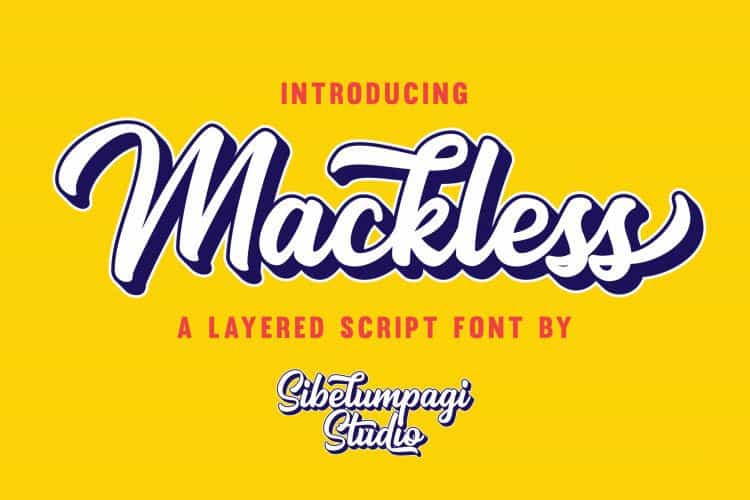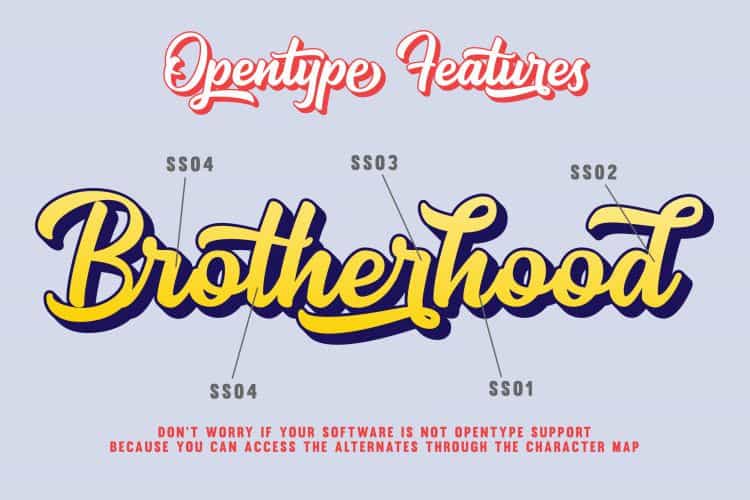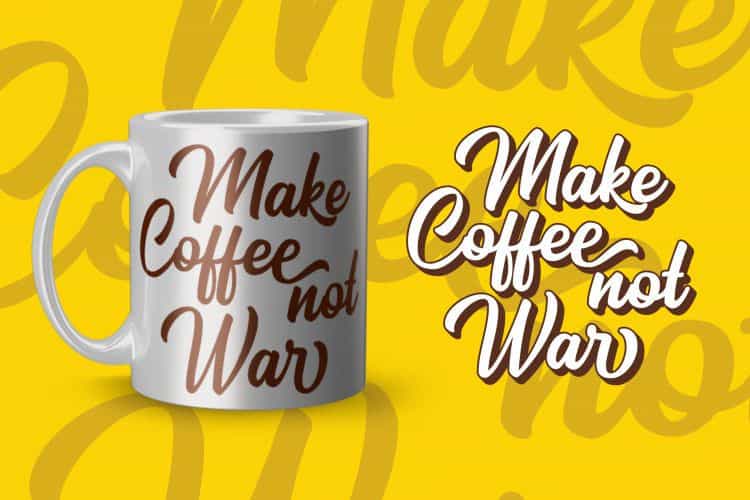
Introducing Mackless Font. Mackless Script Font is a neat script font which has been created based on handlettering, bold script, brush script and logotype. Mackless came with an additional extruded font for a good combination of the design you need, and it also included opentype features with PUA encoded like alternates and ligatures.